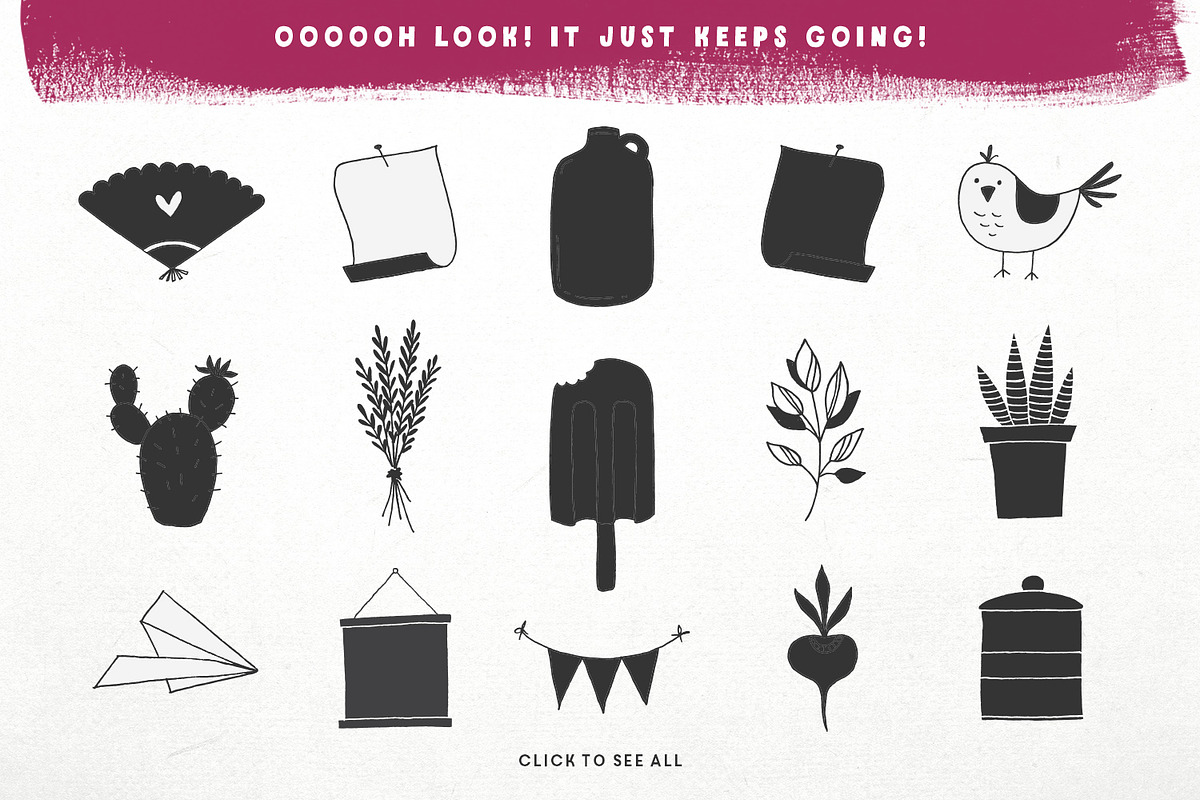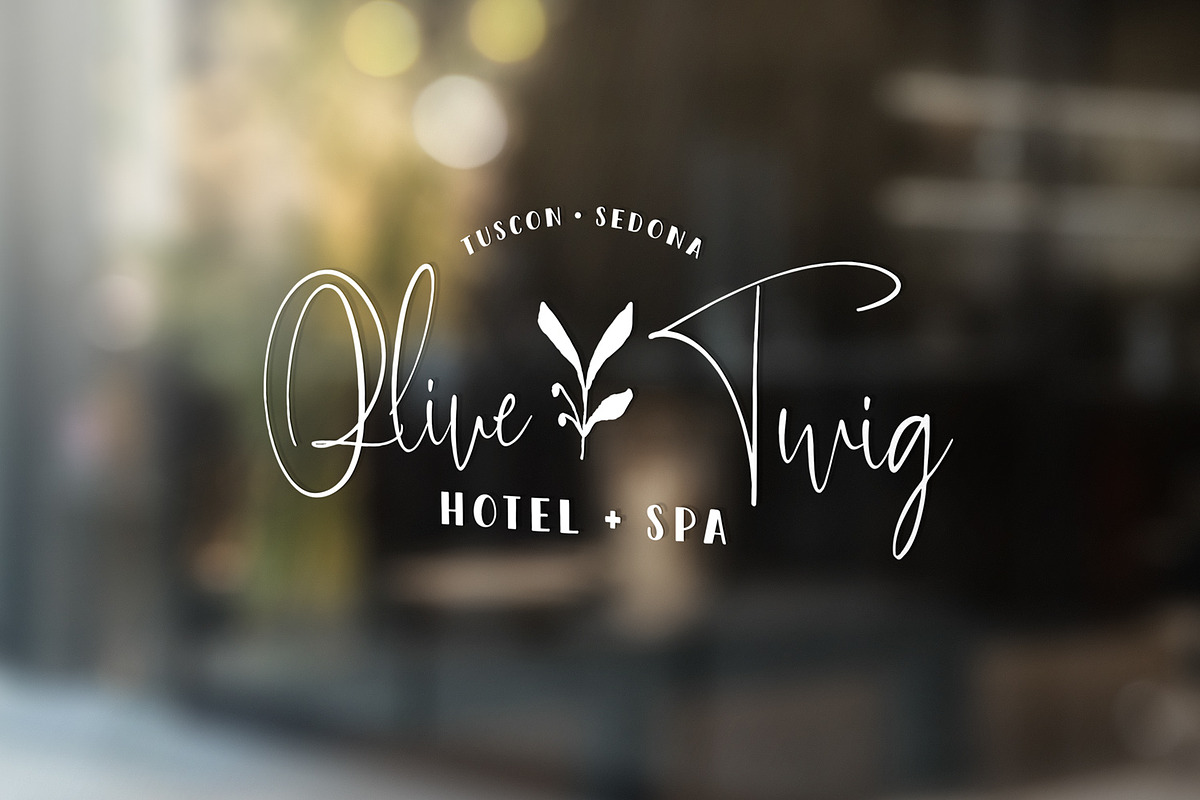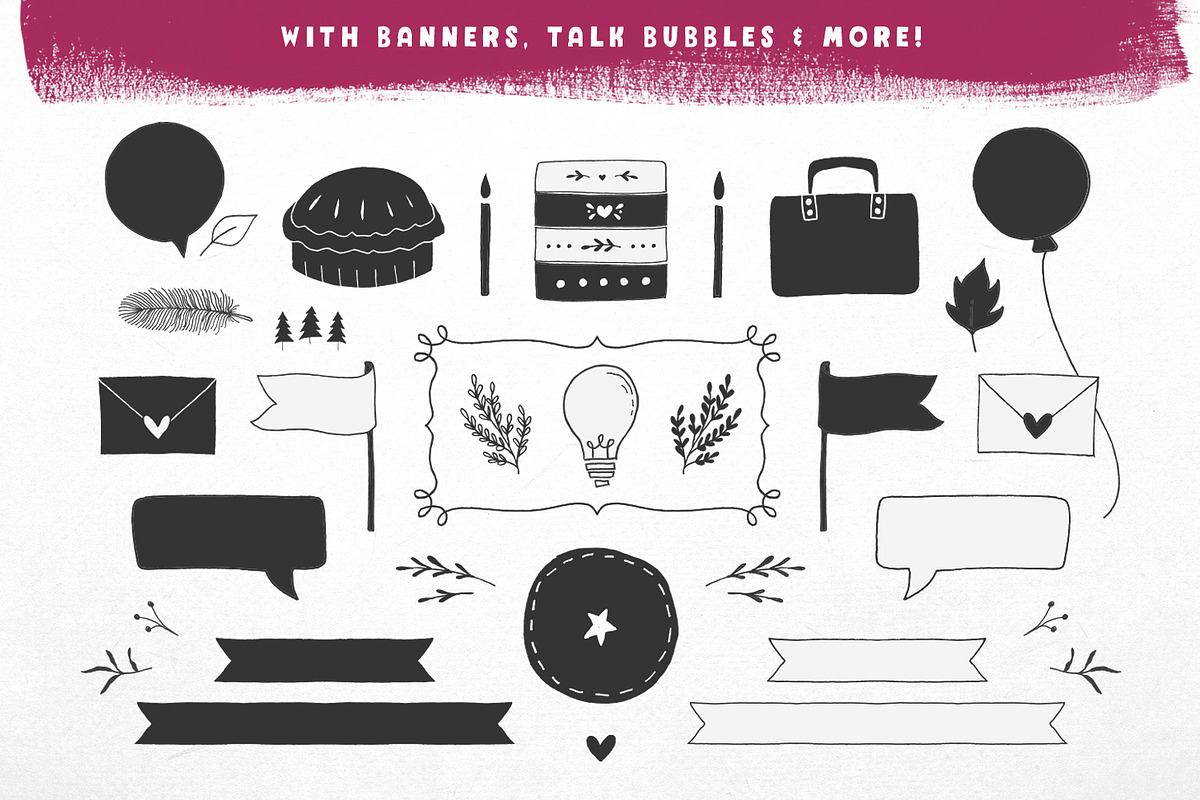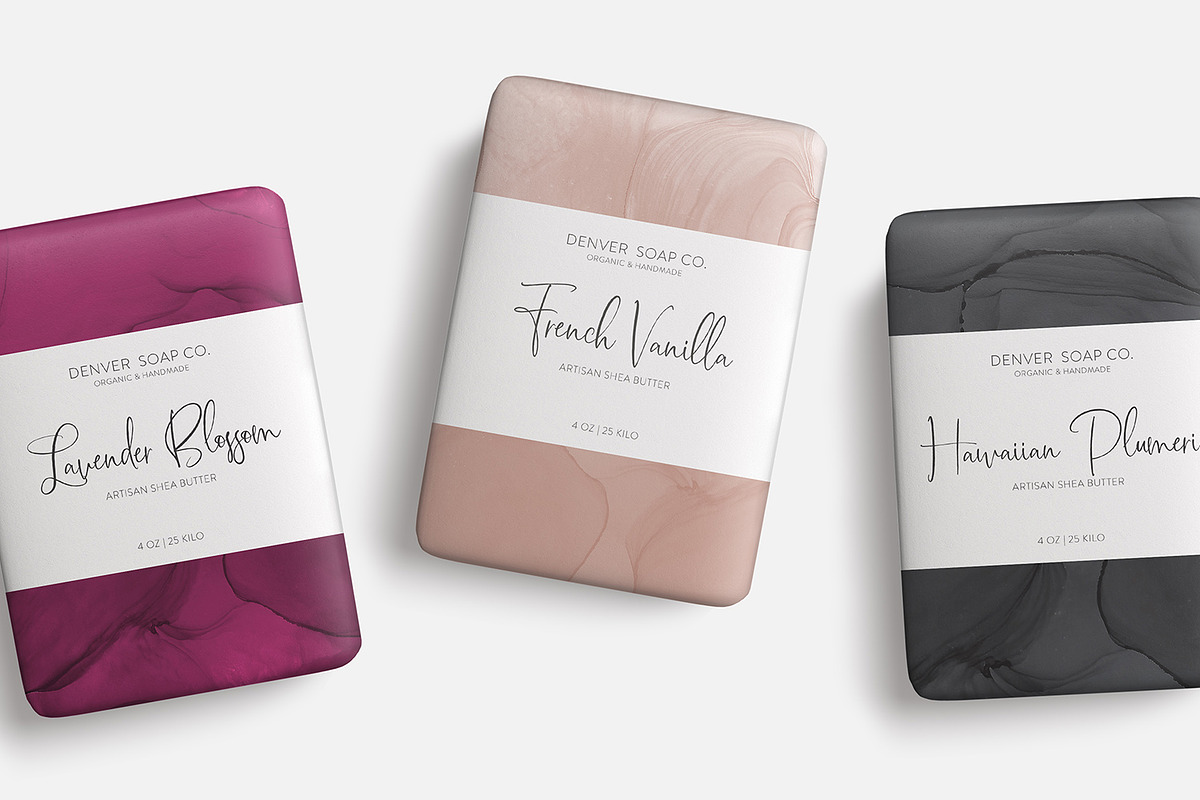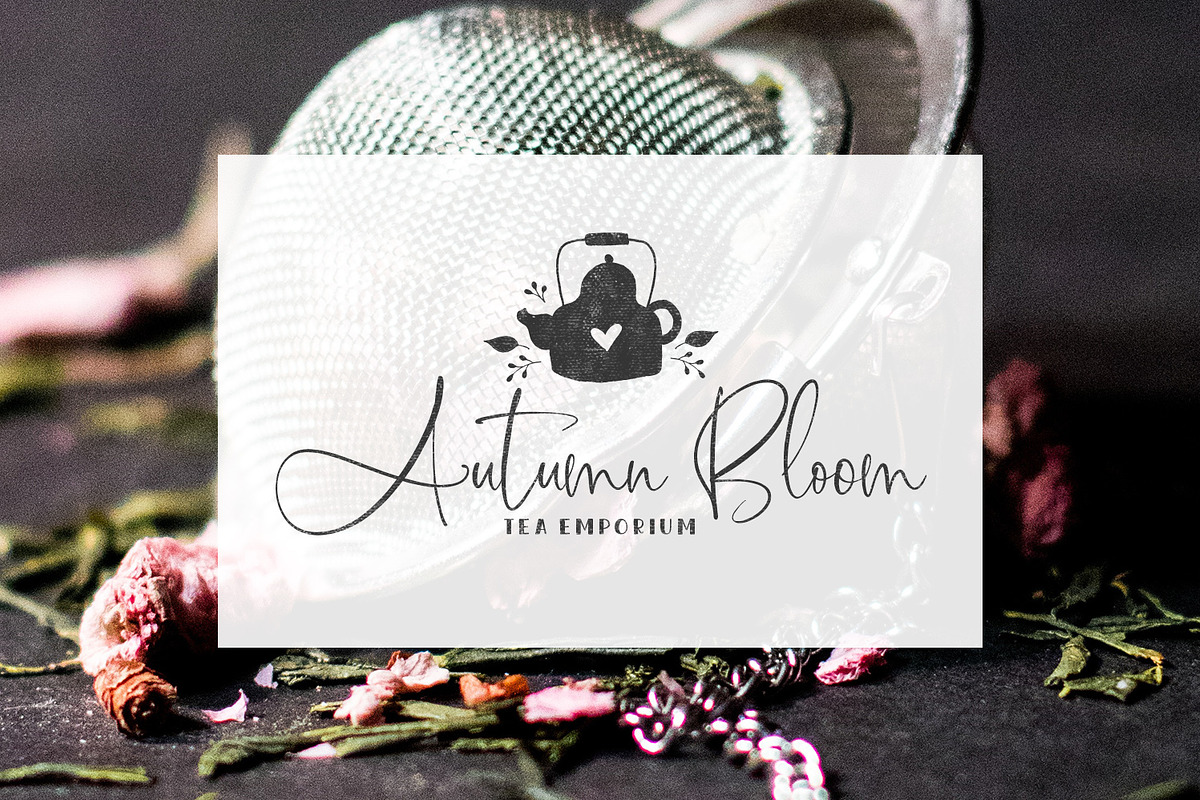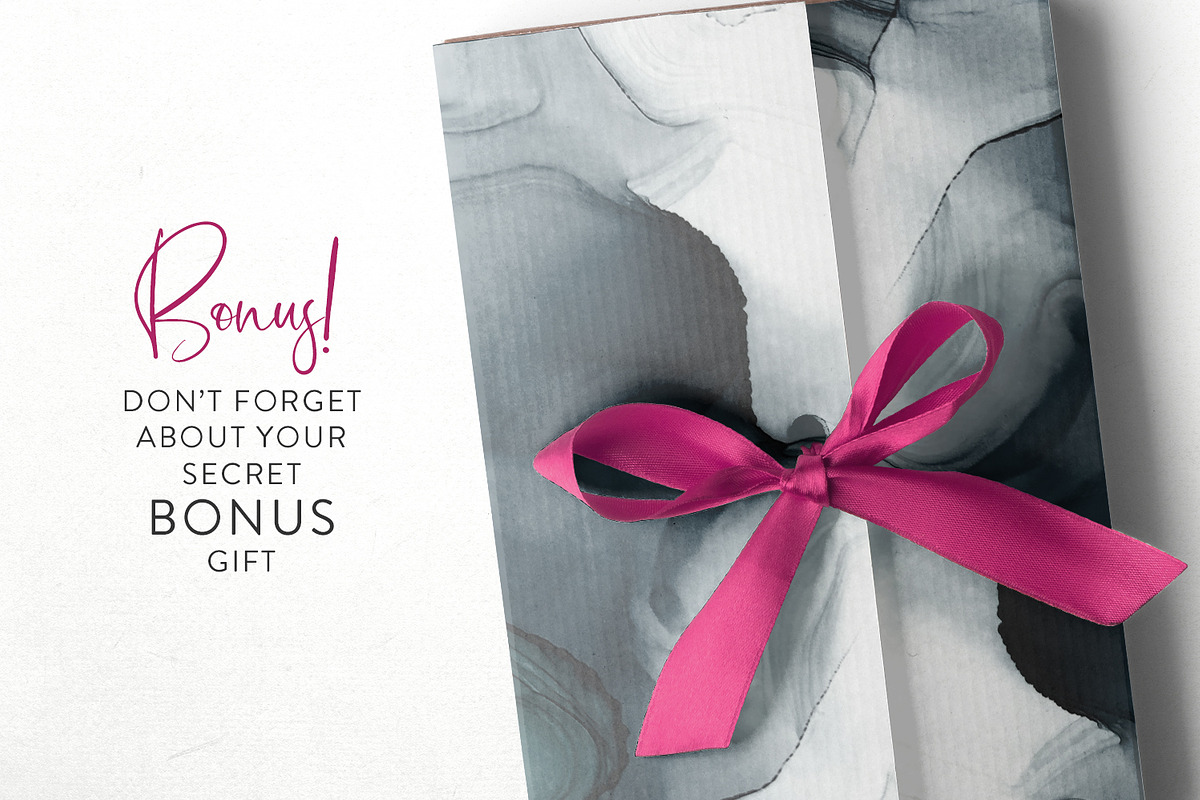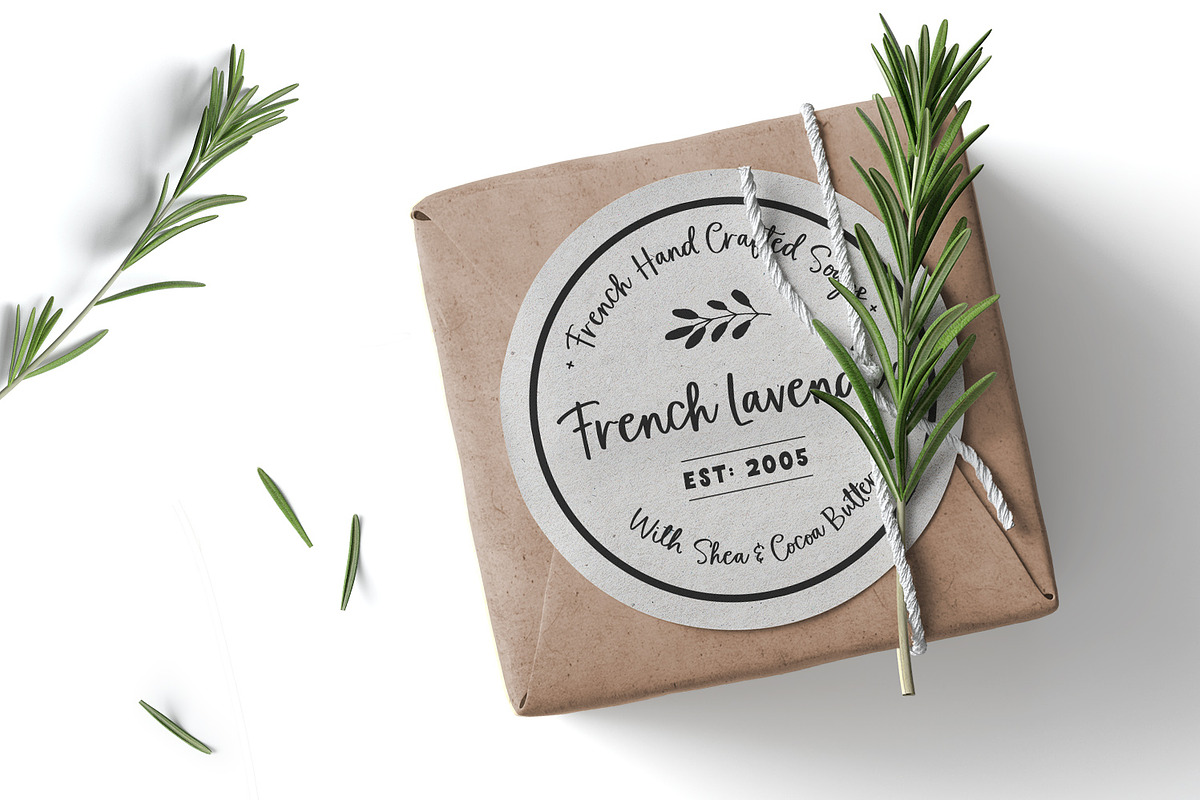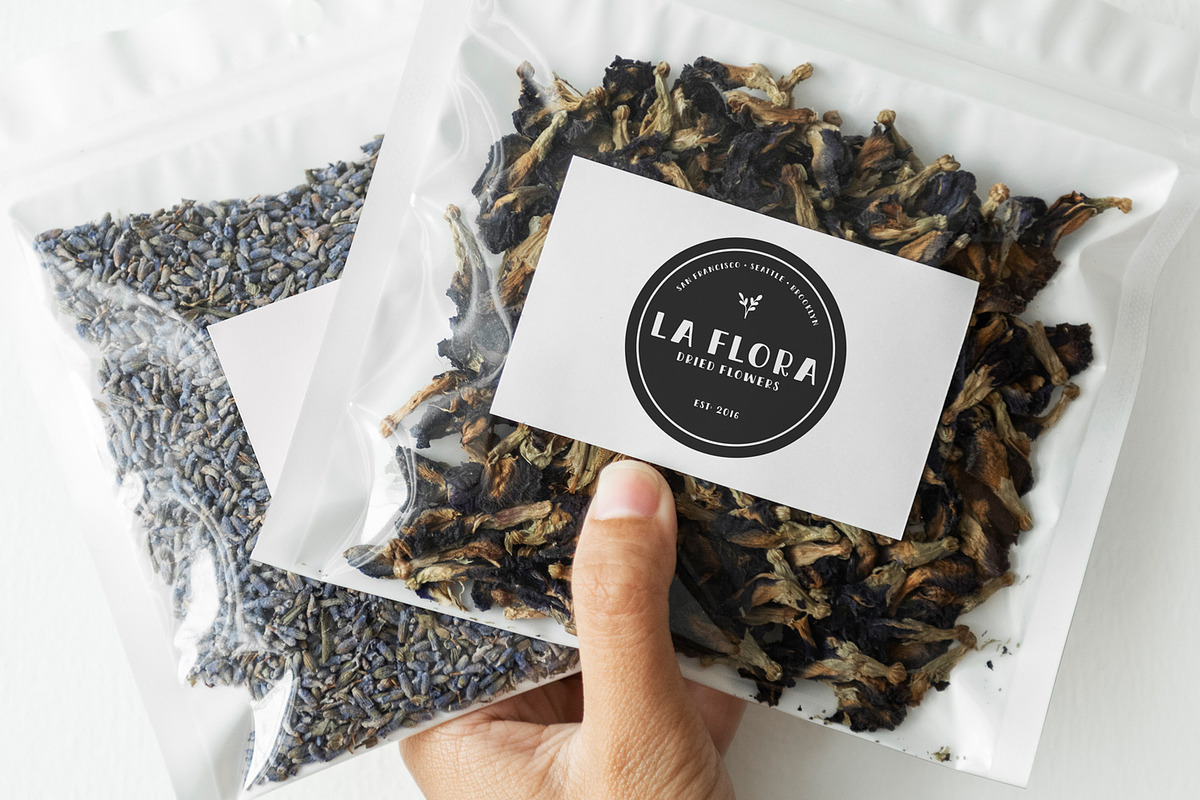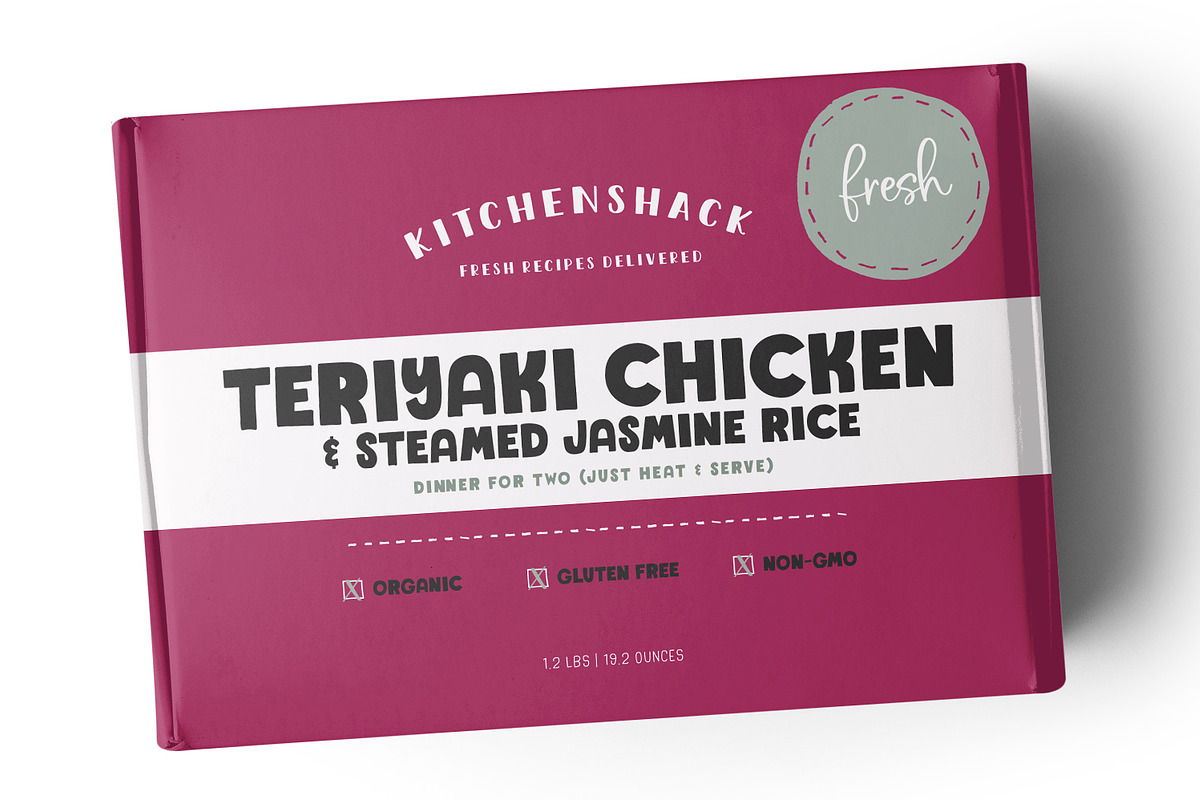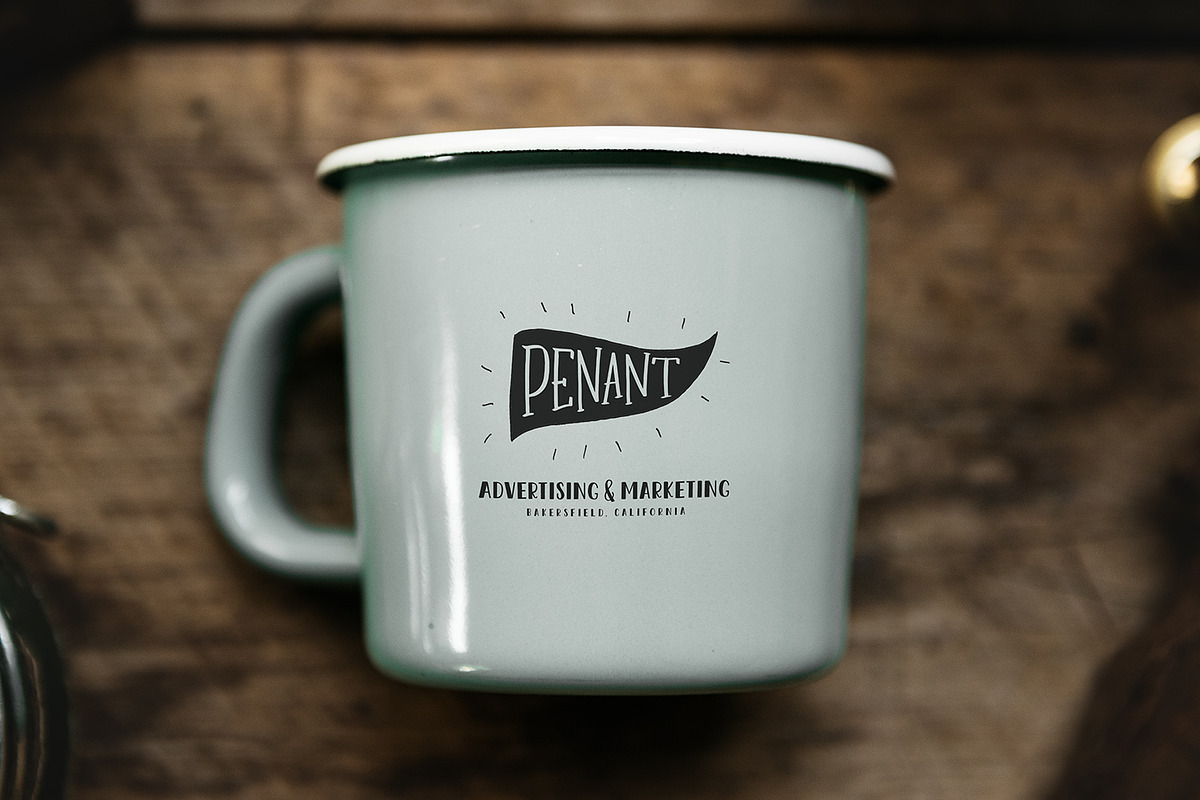
The Modern Artisan Font Collection
Get ready for an avalanche of design goodness with the Modern Artisan Typeface Collection! This Ultra-handy, Ultra-Trendy bundle has everything you need to create hand lettered branding, packaging, apparel, totes, quotes and more! The “MAC” is PACKED with 16 NEW fonts, over 100 Illustrations, 27 Logo Templates, and TWO special bonuses for your creative pleasure.
INCLUDED FONTS:
MAC_Burlesque - A Fun, all caps typeface with alternating upper and lowercase characters.
MAC_Cabana Sunset - A Thin, hand lettered font, designed for legibility, it looks great on taglines & quotes.
MAC_Cabana Sunset Bold - Just in case you needed a thicker version in your life.
MAC_Chunky Monkey - A Super Thick, hand sketched display font, designed specifically for Headlines. But this chunky fella also looks amazing as subtext in logos.
MAC_Chunky Monkey Solid - The Solid version looked so cool, I just had to include it.
MAC_Confetti Bomb - The bundle is worth it, for this font alone! I honestly can’t get enough of Confetti Bomb! With it’s smooth stokes and unusual Caps, this typeface looks uniquely stunning in just about everything.
MAC_Confetti Bomb Italic - It was just so pretty, I added an Italic Version. Because, you know, wedding season is coming. ;)
MAC_Firecracker - This highly-legible sans serif looks amazing as a display font, but it’s equally stunning for taglines and small text.
MAC_Ladyfingers - A quirky sans serif, perfect for logos. I especially love the Uppercase “Q.”
MAC_Matchmaker - Matchmaker is the only “textured” font in the bundle. Boasting a slightly rustic appearance paired with elegant lines, Matchmaker looks especially lovely on personal branding and business cards.
MAC_Oh Fabulous! - This is one of my favorites! It’s sweet, a bit condensed, and full of charm. Oh Fabulous! contains ligatures, and a few hidden glyphs. ;)
MAC_Pencil Pusher - A simple handwriting font for legible quotes, taglines & logos.
MAC_Punchbowl Bandits - A Font bundle wouldn’t be complete without that quirky serif, right? Well, that’s Punchbowl Bandits. And this cutie-pie comes with: “La, Le, Li, Lo, Lu & Ls” automatic ligatures to make your type standout!
MAC_Sugarshack - This super sweet sans serif looks dreamy on pillows, notebooks, calendars & planners.
MAC_Supercute Crush - I’ve been wanting a thicker, condensed script for quotes, so I whipped up this baby. This smooth, whimsical font pairs so well with Pencil Pusher & Cabana Sunset. (The Uppercase Characters looks amazing on their own).
MAC_Swanky - Swanky is just like it’s name; Relaxed and saucy. I especially like the numerals on this one (hint, hint). ;) Oh, and this one comes with decorative beginning and end characters.
Most of the fonts have automatic ligatures or hidden alternate characters, so be sure to check your Glyphs Panels.